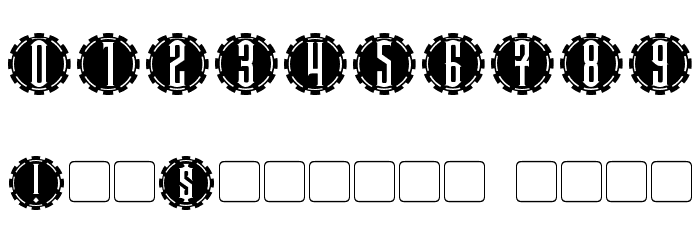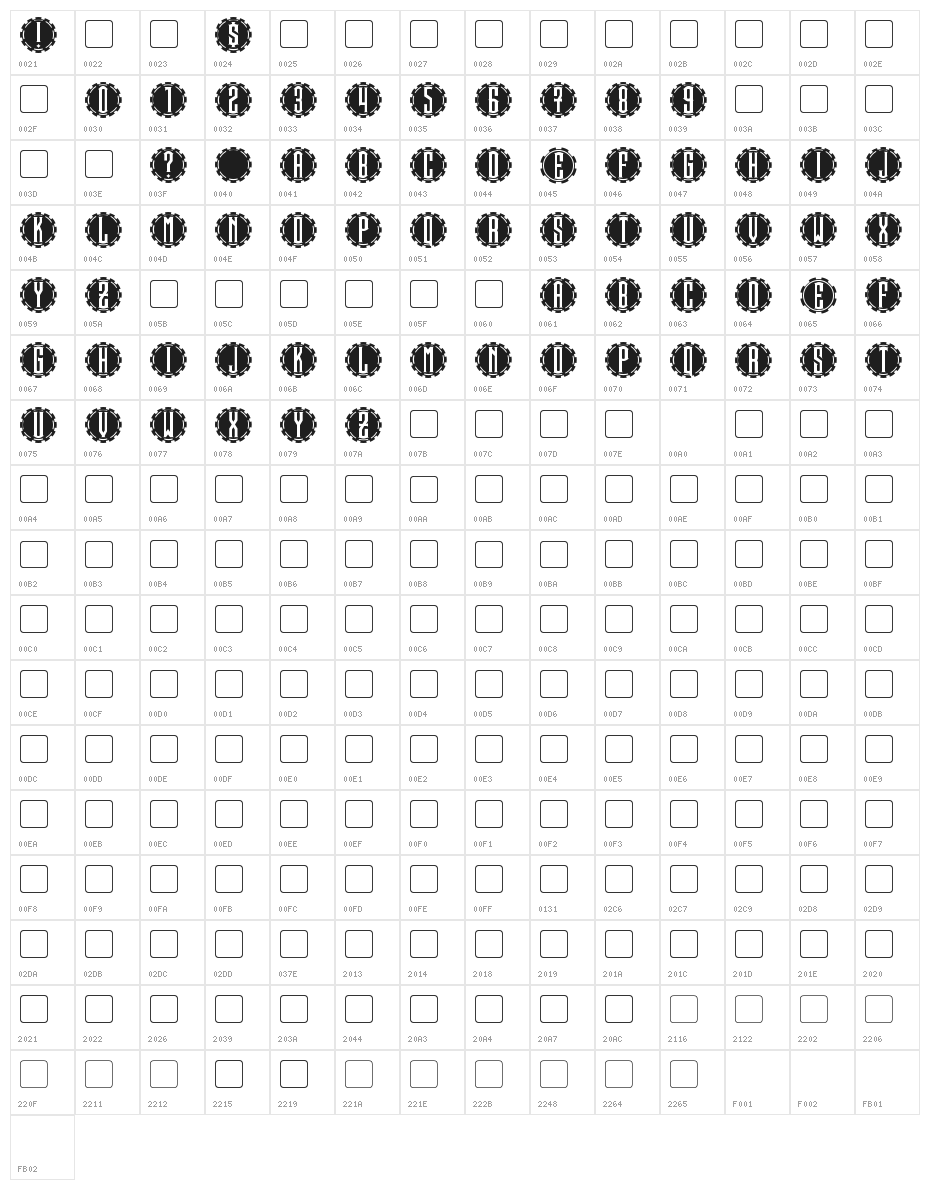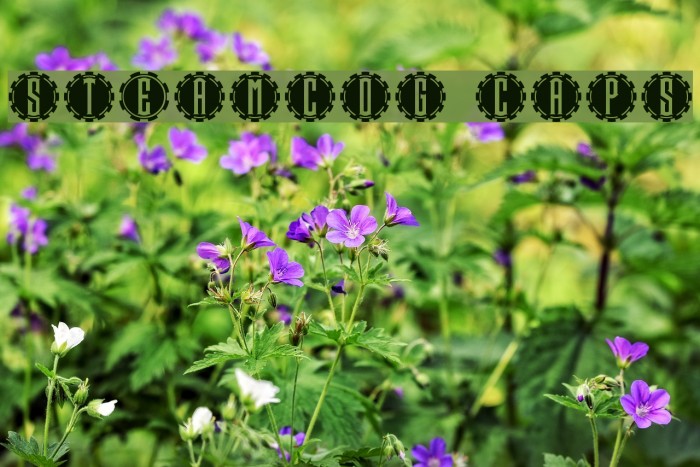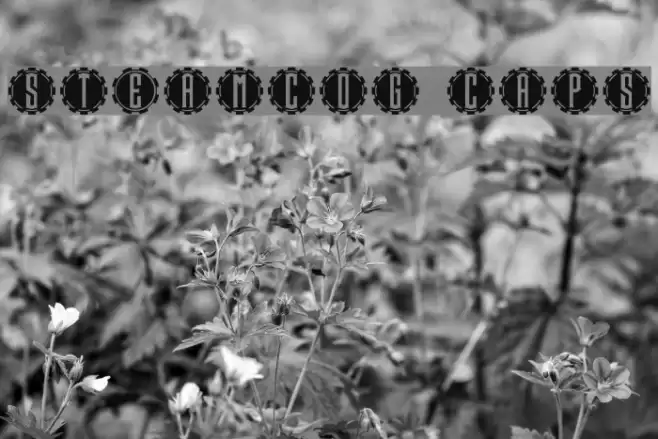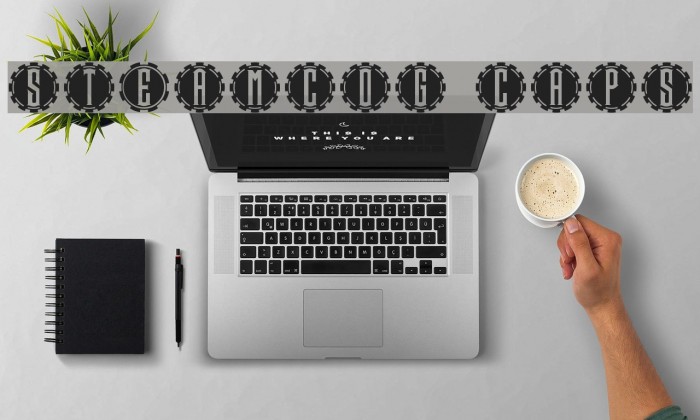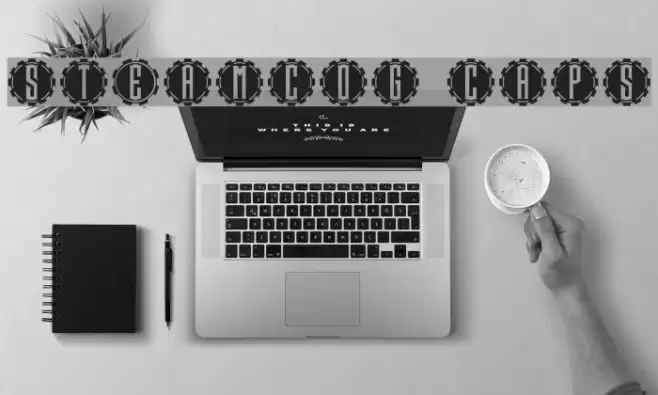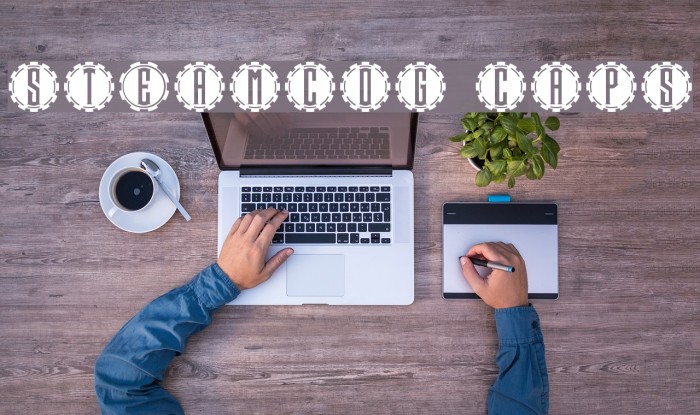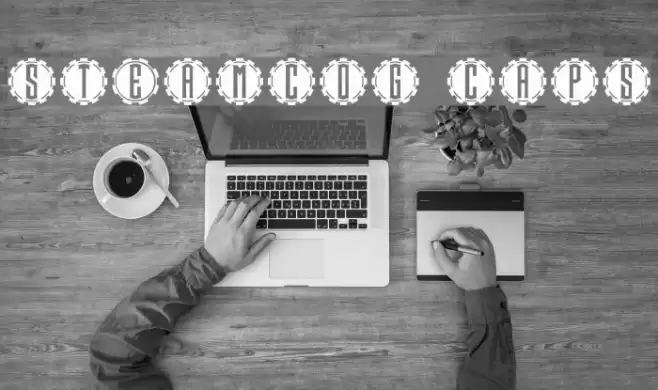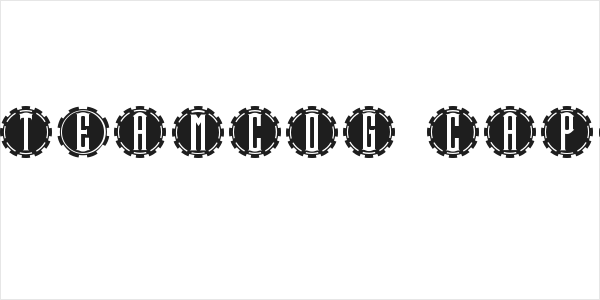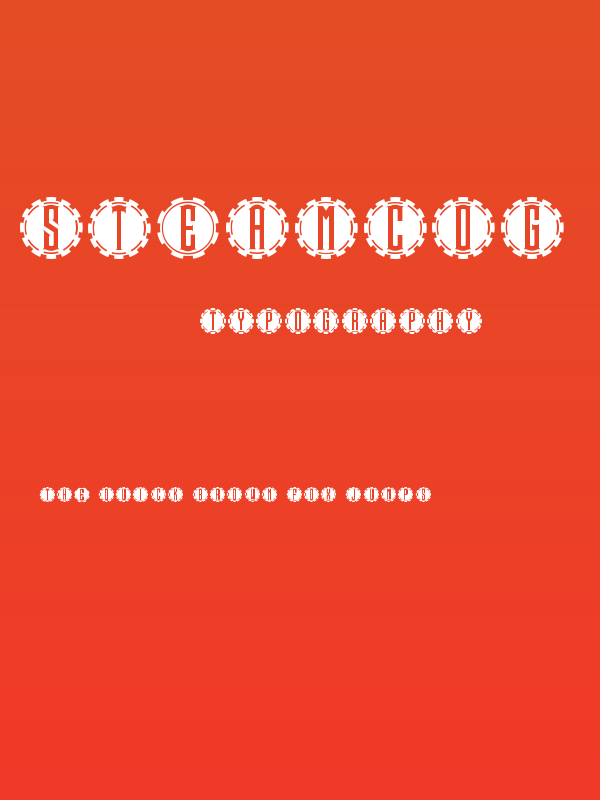
Steamcog Caps Font
Steamcog Caps Description
This font features a unique steampunk-inspired design, where each character is encased in a gear-like circle, giving it a mechanical and industrial feel. The letters are bold and capitalized, with a distinct, angular style that stands out against the circular backdrop. The numbers and special characters follow the same design, maintaining consistency throughout the set. This font is highly decorative, making it ideal for projects that require a strong visual impact. The intricate detailing of the gear elements adds a layer of complexity, making it suitable for themed designs or branding that seeks to convey a sense of innovation and creativity.
| Use Case | Logos, Posters, Themed Events |
| Proposed Projects | Ideal for steampunk-themed events, posters, branding for tech or mechanical industries, and creative design projects. |